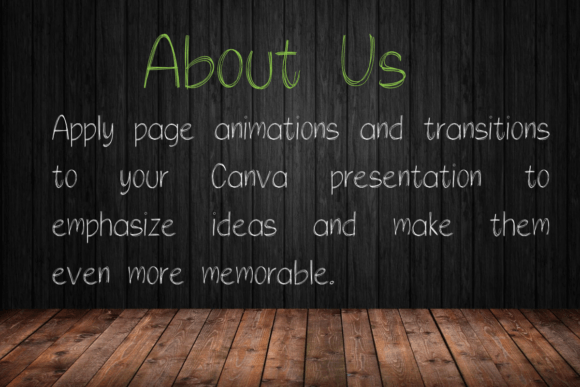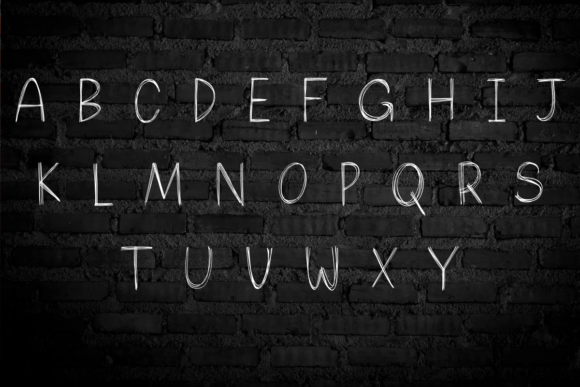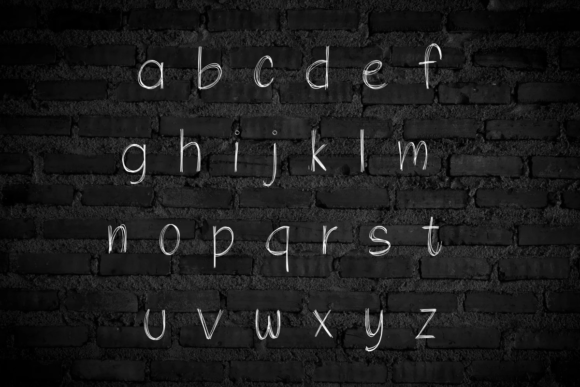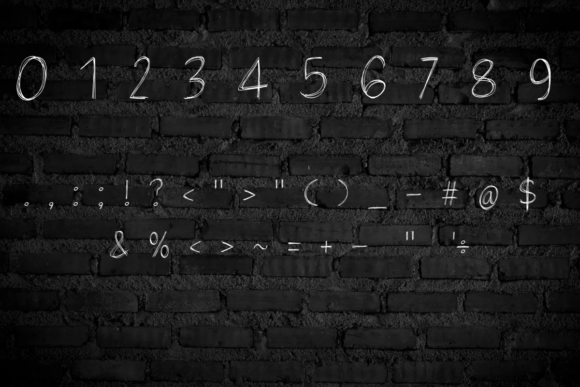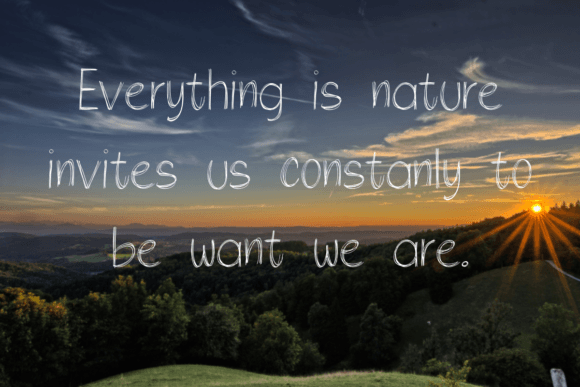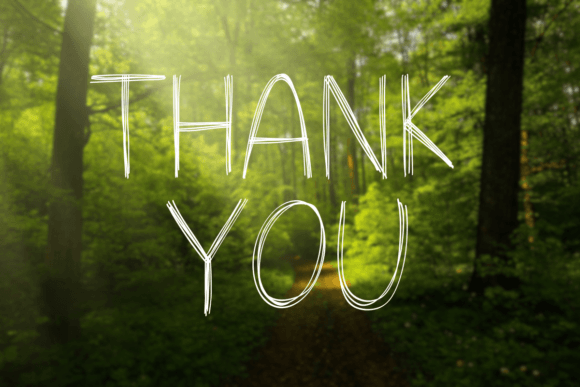
Introducing Bois Font: The Ultimate Handwritten Font for Your Creative Projects
Are you a designer or crafter looking for a unique and beautiful font to add a personal touch to your projects? Look no further than Bois Font, a cute and friendly handwritten font that’s perfect for a wide range of creative endeavors. In this article, we’ll explore the features and benefits of Bois Font, and show you how it can elevate your designs and crafts to the next level.
What is Bois Font?
Bois Font is a carefully crafted handwritten font that’s designed to add a touch of warmth and personality to your projects. Its unique and elegant style makes it perfect for a variety of applications, from Easter and wedding designs to back to school and Halloween projects. Whether you’re creating posters, blogs, clothing, or greeting cards, Bois Font is the perfect choice.
Features of Bois Font
So, what makes Bois Font so special? Here are just a few of its key features:
- Cute and Friendly Style: Bois Font has a playful and approachable style that’s perfect for designs that need a personal touch.
- Handwritten with Love: Each letter has been carefully crafted by hand to ensure a unique and authentic look.
- Versatile: Bois Font can be used for a wide range of projects, from Easter and wedding designs to back to school and Halloween projects.
- Elegant and Unique: Bois Font adds a touch of elegance and sophistication to any design, making it perfect for special occasions.
Uses for Bois Font
So, what can you use Bois Font for? The possibilities are endless! Here are just a few ideas to get you started:
- Easter Designs: Create adorable Easter-themed designs, from egg decorations to bunny invitations.
- Wedding Designs: Add a touch of romance and elegance to your wedding designs, from invitations to decorations.
- Back to School Designs: Create fun and playful back to school designs, from posters to party decorations.
- Halloween and Christmas Designs: Get into the holiday spirit with Bois Font’s unique and festive style.
- Clothing and Accessories: Use Bois Font to create custom clothing and accessories, from t-shirts to tote bags.
- Greeting Cards and Invitations: Add a personal touch to your greeting cards and invitations with Bois Font’s elegant and unique style.
Why Choose Bois Font?
So, why should you choose Bois Font for your next project? Here are just a few reasons:
- Unique and Original: Bois Font is a one-of-a-kind font that’s sure to make your designs stand out.
- High-Quality: Bois Font is a high-quality font that’s designed to produce crisp and clear results.
- Support for Designers and Crafters: Bois Font is designed with designers and crafters in mind, providing the support and flexibility you need to bring your creative vision to life.
In conclusion, Bois Font is a beautiful and unique handwritten font that’s perfect for designers and crafters looking to add a personal touch to their projects. With its cute and friendly style, elegant and unique look, and versatility, Bois Font is the perfect choice for a wide range of creative endeavors. Whether you’re creating Easter designs, wedding invitations, or back to school posters, Bois Font is sure to bring your creative vision to life.